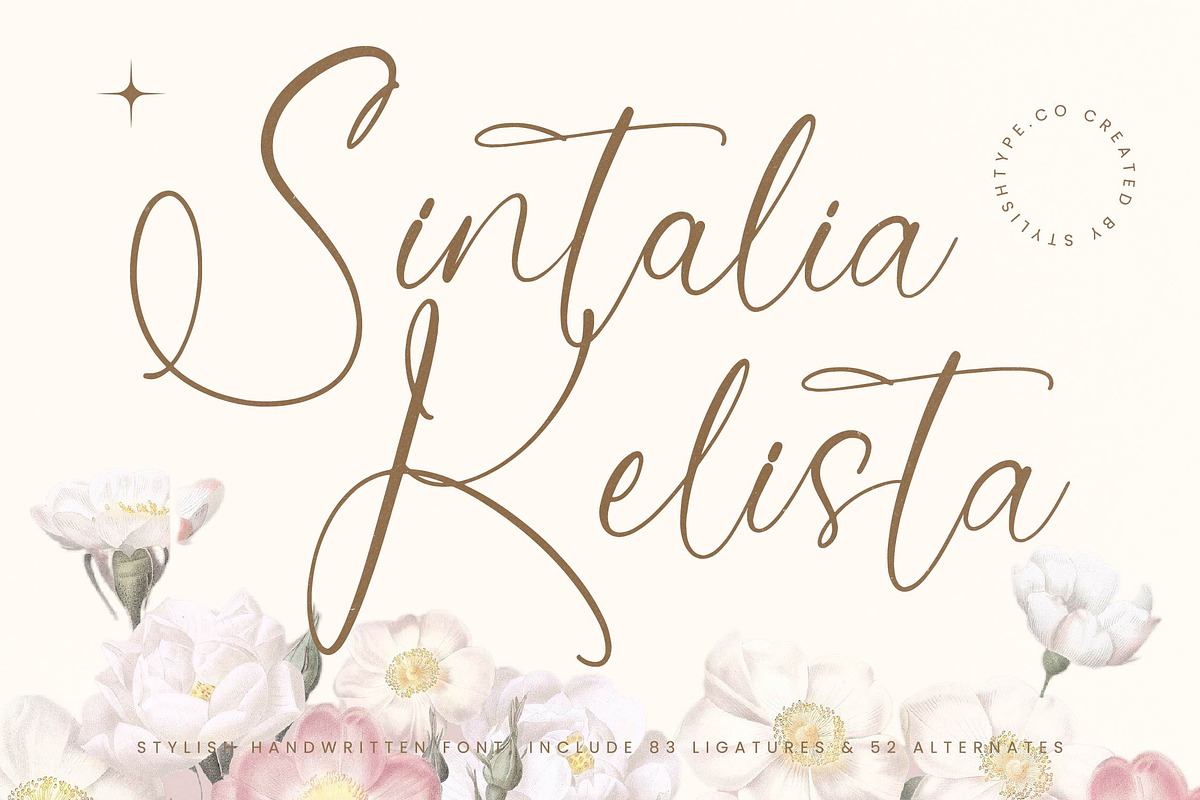
Sintalia Kelista Stylish Handwritten Font Free Download is an elegant and expressive handwritten script typeface designed to bring personality and sophistication to your designs. With its flowing strokes, unique style, and artistic flair, this font is perfect for wedding invitations, branding, greeting cards, social media graphics, and more.
The handwritten feel of Sintalia Kelista adds a personal touch to any project, making it ideal for designs that aim to feel intimate and stylish. Whether you're working on a luxury brand, a heartfelt invitation, or a chic product label, Sintalia Kelista offers charm and elegance for your typography.